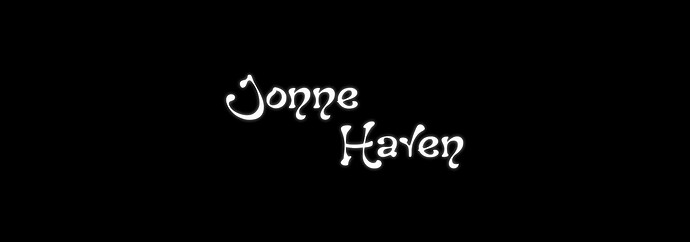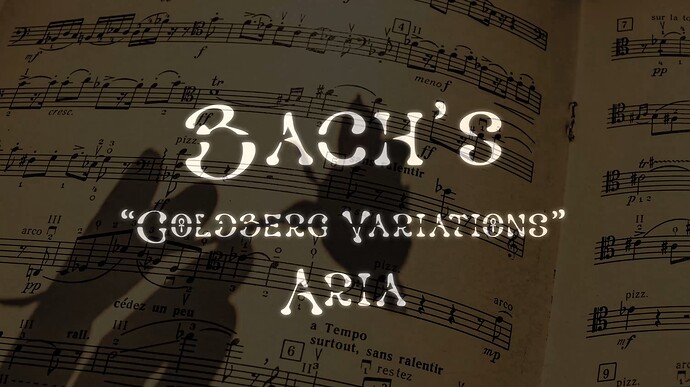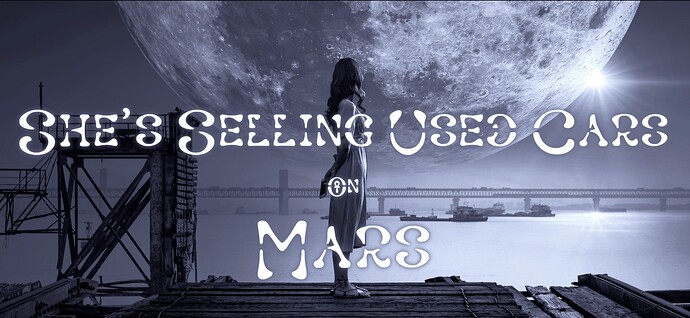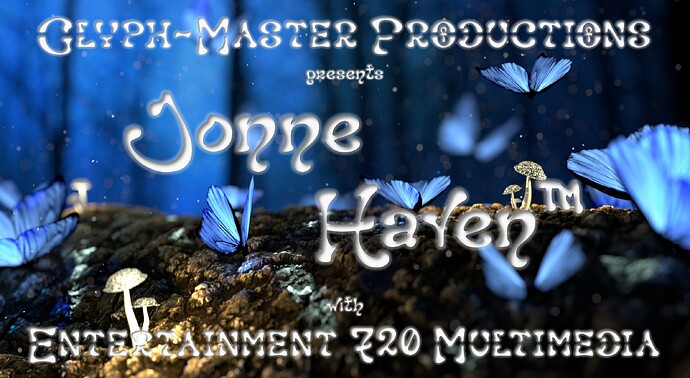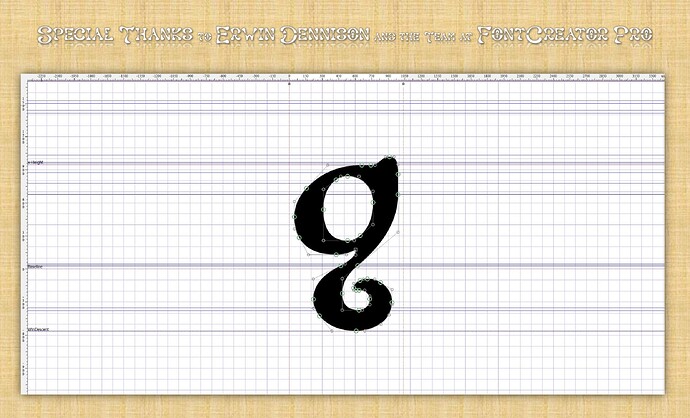
Presenting the Jonne Haven™ Font as used in my Music Lyric Videos on YouTube:
I’m a songwriter/recording artist that has developed my own unique font based loosely on my handwriting scans utilizing several versions of FontCreator Pro. I use this font family in my Music Lyric Videos as well as the various system fonts in my Windows operating system. Flexibility and functionality is important to me when shaping this font and it’s a bit of a Hybrid font because when you type in all caps you get a Small Cap font with a ‘negative strike through’ effect. Type regularly for an entirely different glyph set with contextual alternates when aesthetically appropriate everywhere! Two fonts in one! Yay!
Jonne Haven - Bach’s Goldberg Variations Aria:
View the Jonne Haven™ font in action in the “Used Cars On Mars” Music Video at: